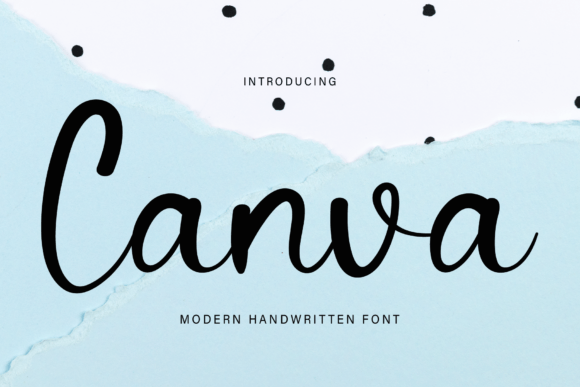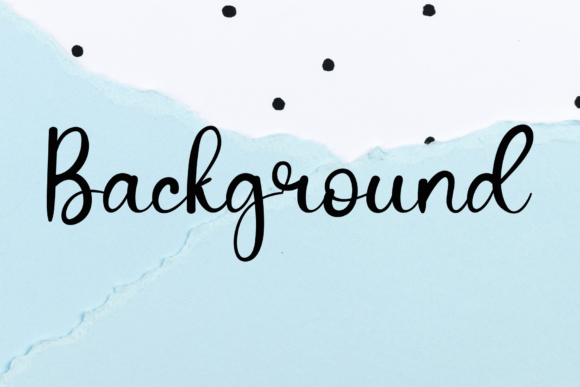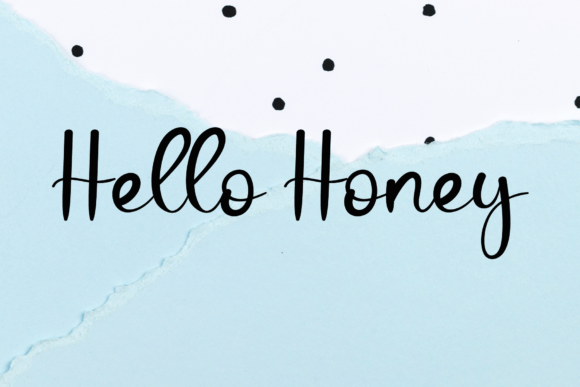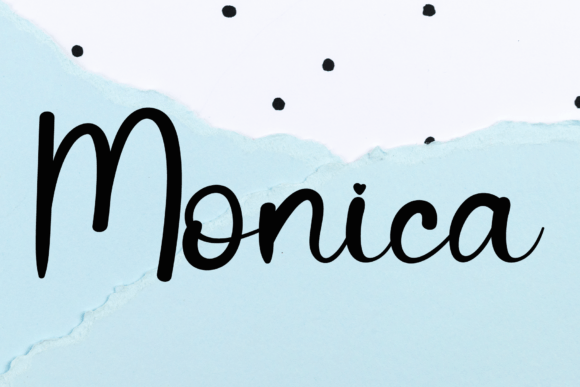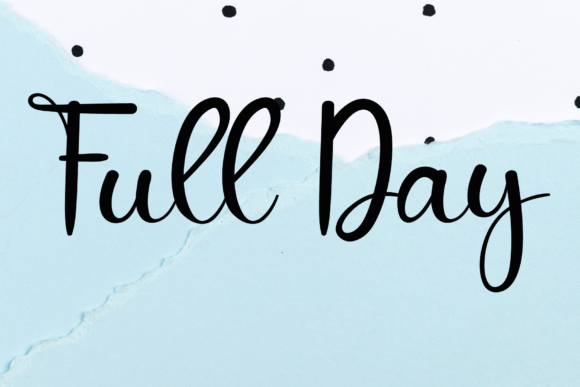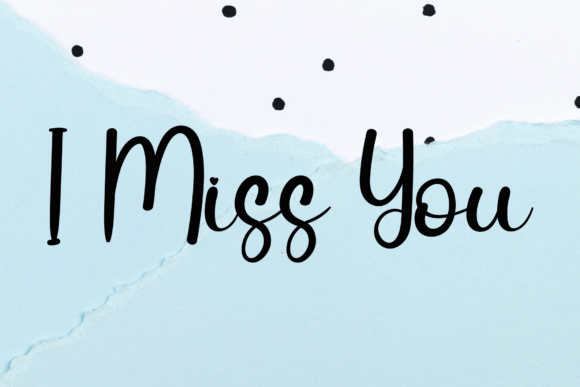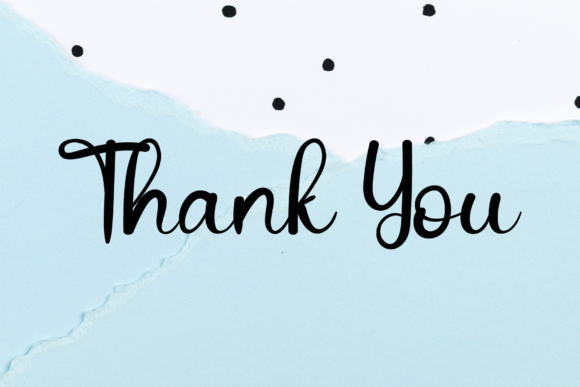
Canva Font
About Canva Font
Canva is a delicate and well-rounded handwritten font, crafted to perfection for those crafty projects that demand authentic typography. This versatile font is perfect for a range of creative endeavors, including wedding invitations, birthday cards, personal branding, elegant logos, and more. Incorporate Canva into your designs, and watch them stand out with a touch of authenticity and elegance.
The delicacy of Canva adds a refined and gentle touch to your text, making it ideal for projects that require a subtle and sophisticated look. Whether you’re designing wedding invitations or elegant logos, Canva’s well-rounded letterforms contribute to a harmonious and balanced visual aesthetic.
Canva’s versatility makes it suitable for various occasions and purposes. Whether you’re creating heartfelt birthday cards or developing a personal brand identity, the font adapts seamlessly, adding an authentic and handcrafted feel to your designs.
Crafted with attention to detail, Canva brings an element of authenticity to your typography. Its handwritten style creates a sense of warmth and individuality, making it a standout choice for projects that require a personal and human touch.
Incorporate Canva into your Canva projects (yes, I couldn’t resist the pun!) or any other design software, and let it elevate your creations. The font’s delicate and well-rounded nature ensures that your designs not only catch the eye but also leave a lasting impression.
In summary, Canva is more than just a font; it’s a design asset that brings delicacy and authenticity to your crafty projects. Whether you’re working on invitations, cards, branding, or more, Canva adds a touch of elegance and genuine craftsmanship, making your designs uniquely captivating.